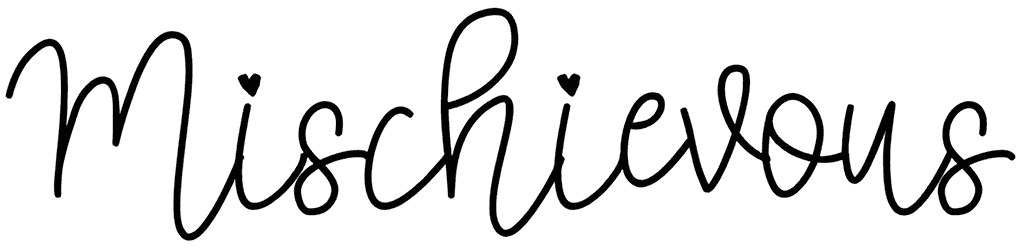
Mischievous Font
Nothing can make your words more youthful than a pen effect and playful elements. Mischievous font lives up to its name and, with unorthodox upbeat letters, conveys a fun, playful, and childish feeling to the readers. You can also use this script font for any product and movie titles, comic books, school banners, and cartoons. Mischievous carries a set of continuous characters with curly elements.